Neue
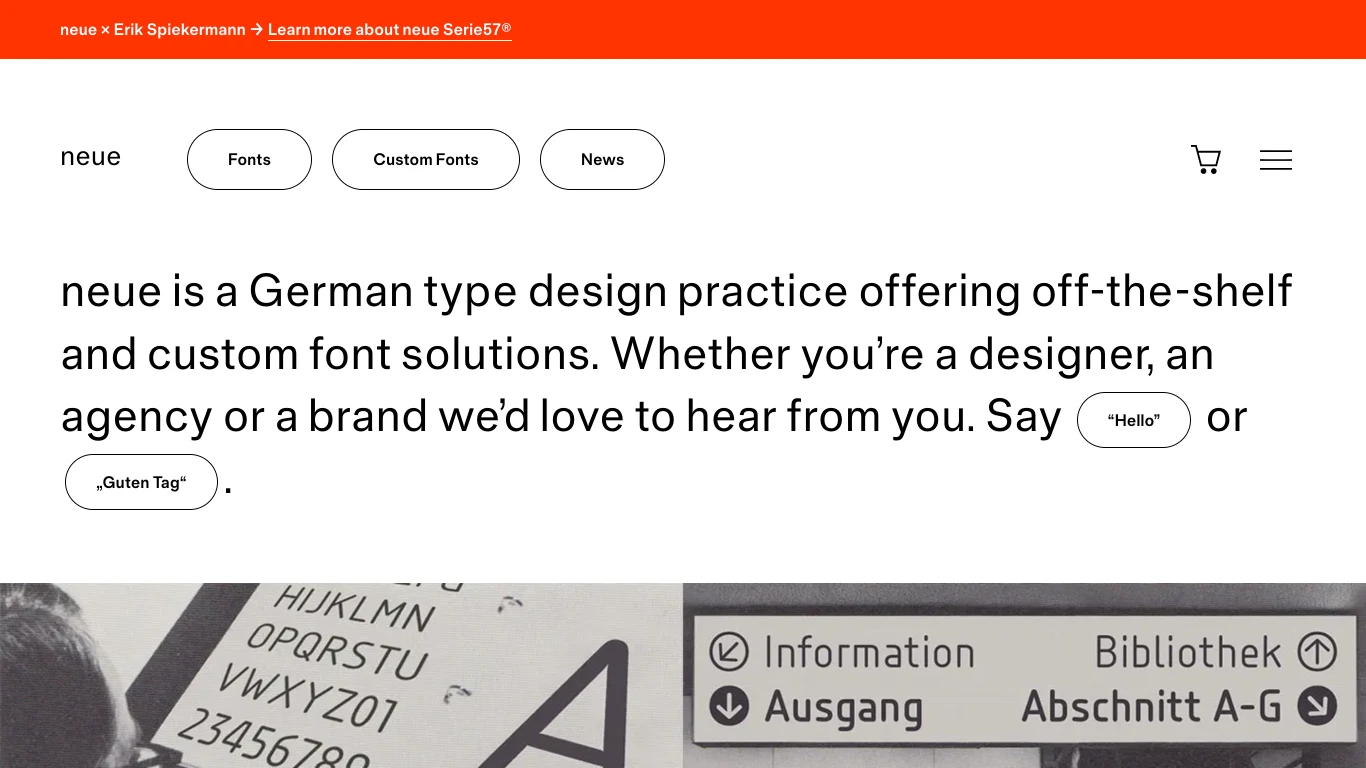
Germany
2020
Neue is a German type foundry founded in 2020 by Alexander Roth, a type designer with experience at FontFont, FontShop, Linotype, Monotype, and Swiss Typefaces. Neue specializes in both retail and custom typefaces, offering solutions for agencies, brands, and institutions Neue's notable typefaces include Neue Serie57, Neue Easo, and Neue Radial, offering versatile, geometric, and functional designs. Their clients include Sherpa Design, Florida Brand Design, and Applied Information Group, with custom fonts created for brands like Eintracht Frankfurt and IBM Plex. Alexander Roth has received recognition from the Type Directors Club for his work.